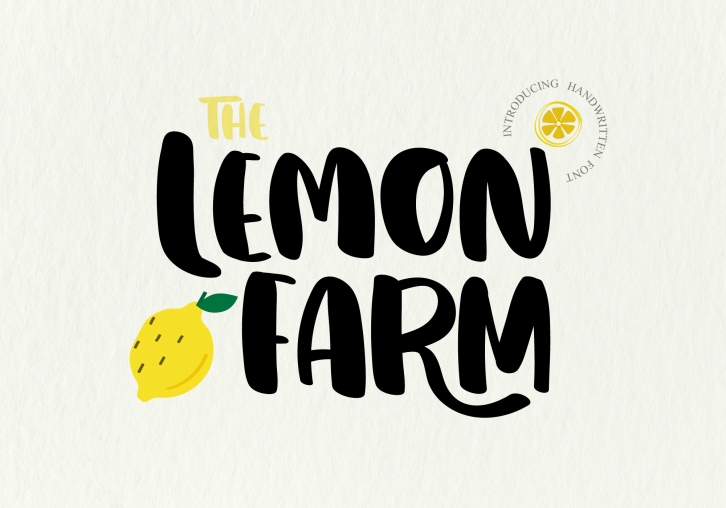
Lemon farm is a sweet and colorful handwritten font. It embodies fun and happiness. Add it to any kids or school projects and notice how this font brightens them up! This font is PUA encoded which means you can access all of the amazing glyphs and ligatures with ease!